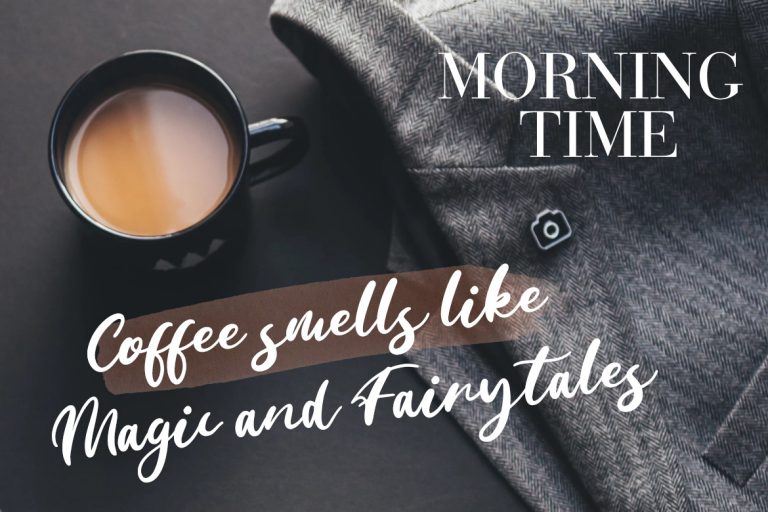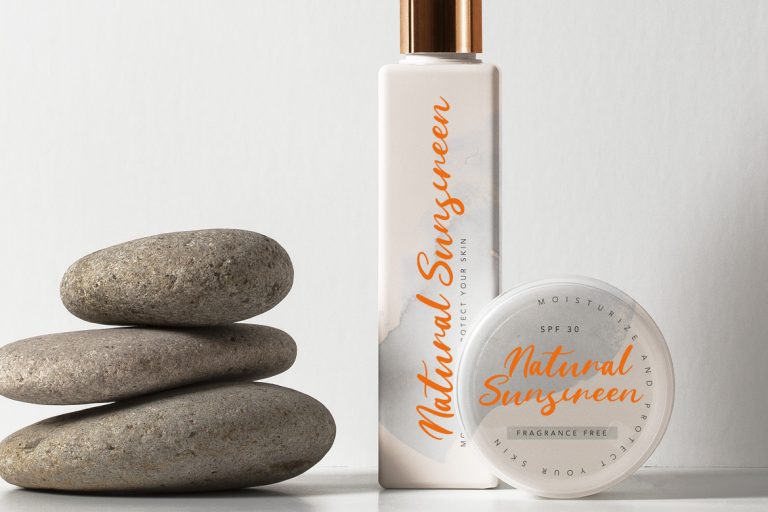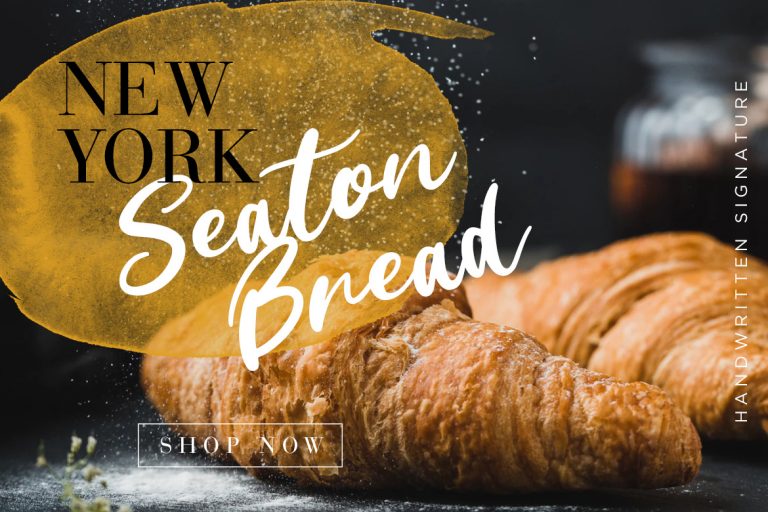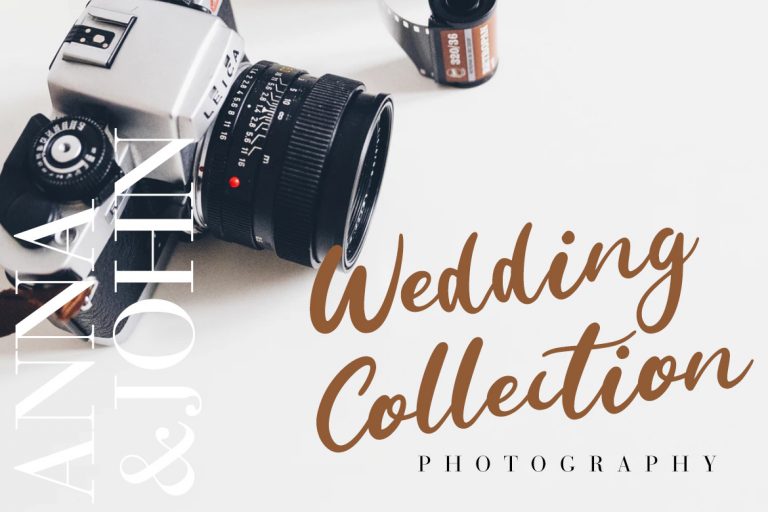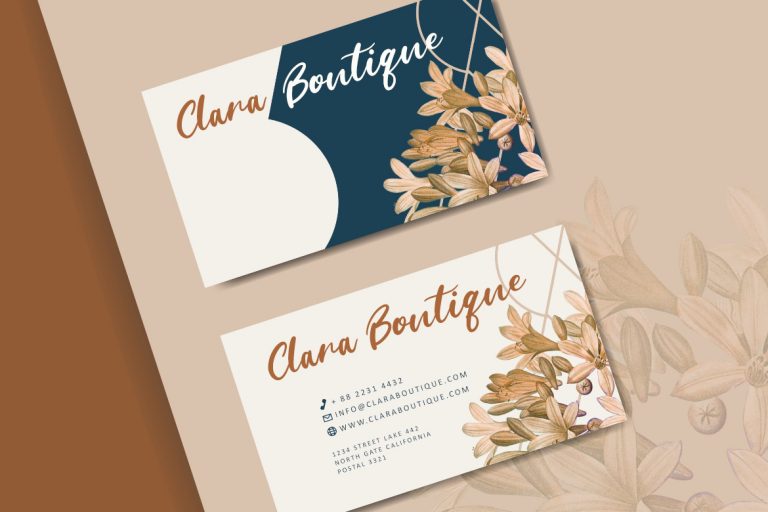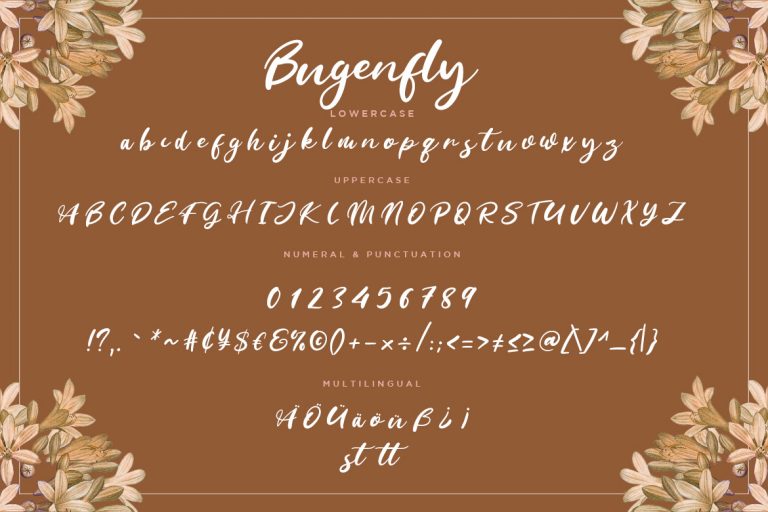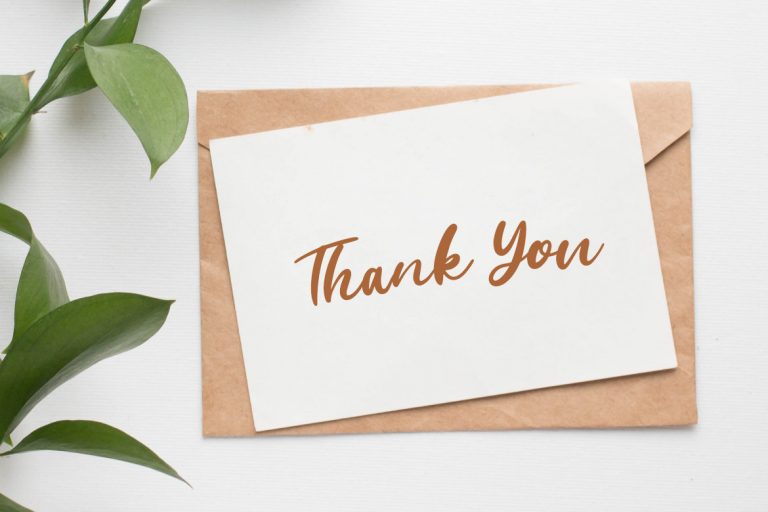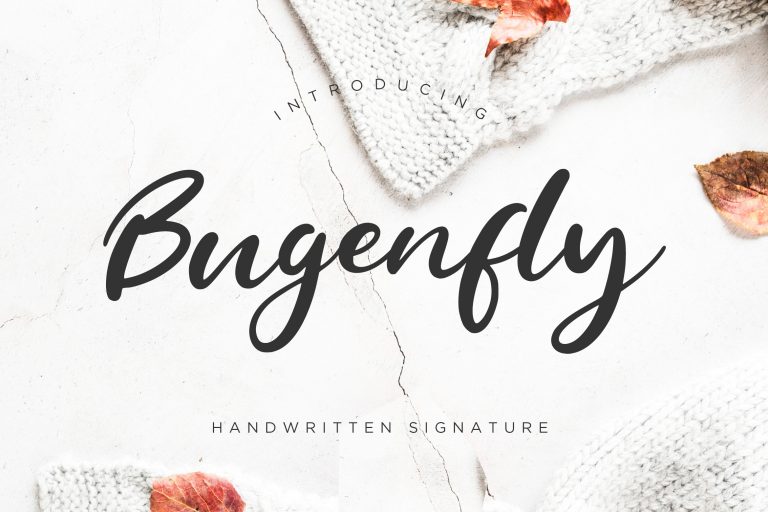
Bugenfly is handwritten font with elegant and classy signature style.
Bugenfly is perfect for branding projects, logo, wedding designs, social media posts, advertisements, product packaging, product designs, label, photography, watermark, invitation, stationery and any projects that need handwriting taste.
• Fonts include multilingual support for; ä ö ü Ä Ö Ü ß ¿ ¡
Bugenfly Handwritten Signature